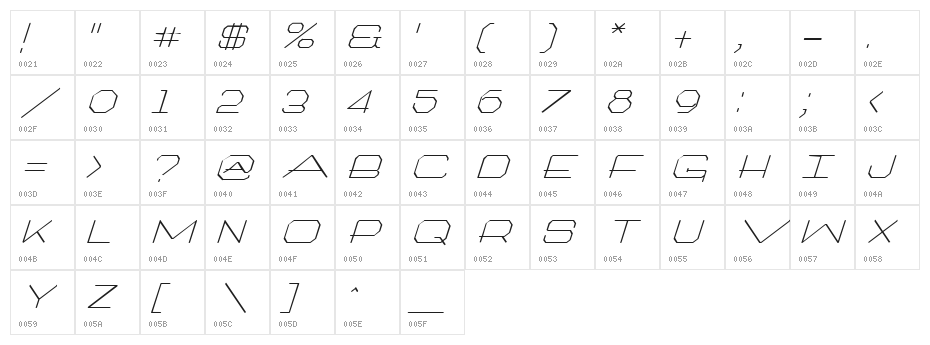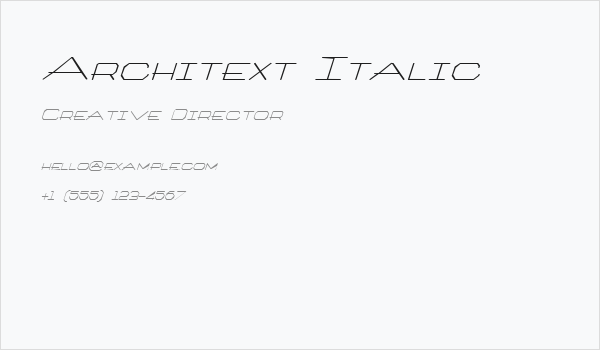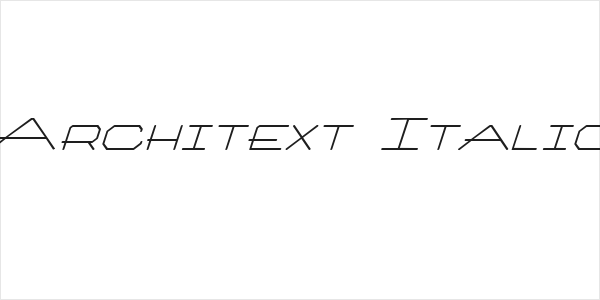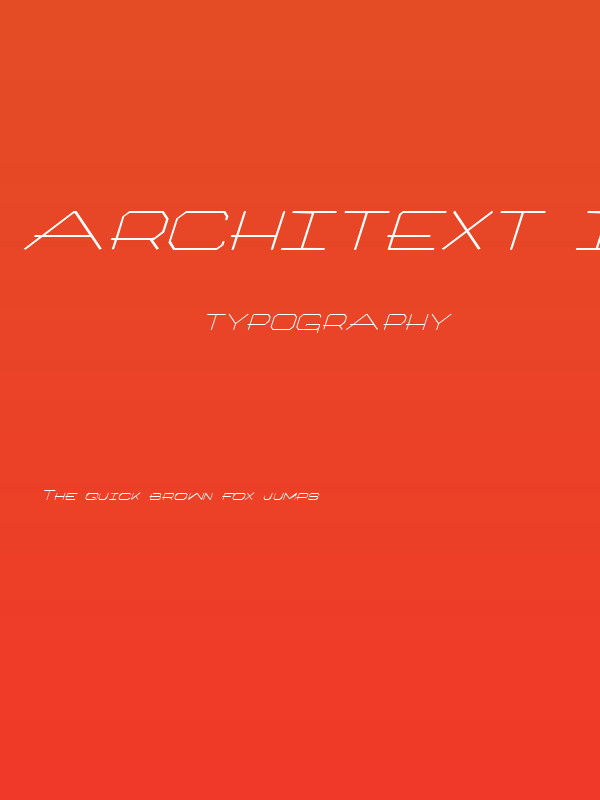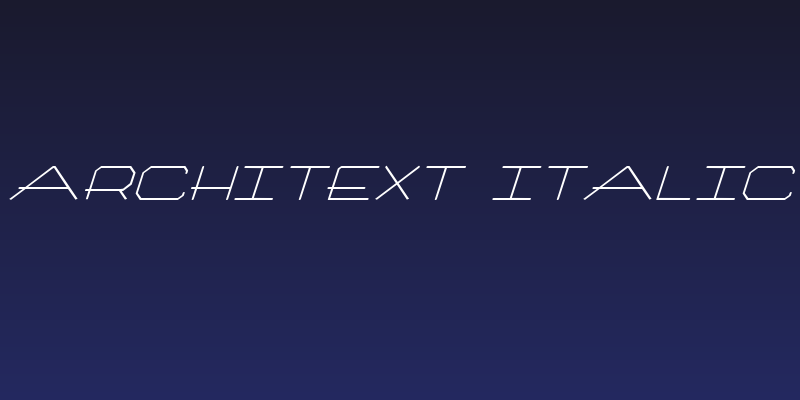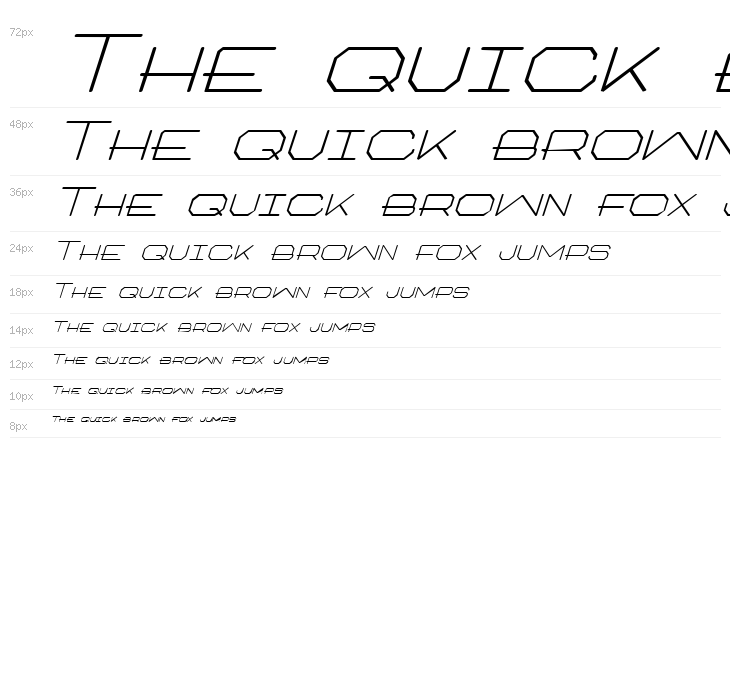
Architext Italic Font
Architext Italic Description
This font features a unique, angular design with a futuristic and technical feel. The characters are constructed with precise, straight lines and sharp angles, giving it a geometric and architectural appearance. The italic style adds a dynamic and forward-leaning aspect to the font, enhancing its modern and innovative look. The uppercase and lowercase letters maintain a consistent structure, while the numerals and special characters follow the same angular theme. This font is ideal for projects that require a cutting-edge and technical aesthetic.
| Proposed Projects | Ideal for architectural designs, tech branding, sci-fi themed projects, and modern advertising. |